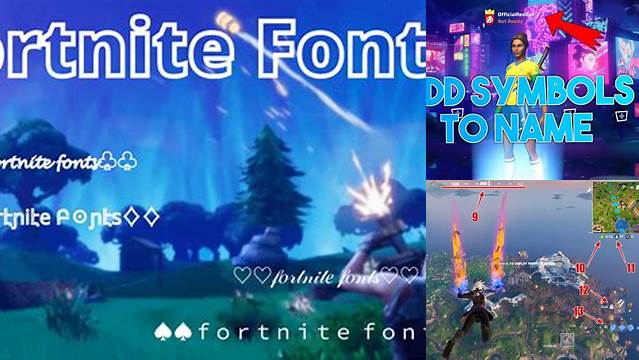
Fortnite Symbols & Fonts: Your Ultimate Guide
Hey, gamers! Are you ready to take your Fortnite game and content creation to the next level? If you're nodding your head, then you're in the right place! We're diving deep into the world of Fortnite symbols and fonts. We'll explore how you can spice up your usernames, clan tags, in-game chat, and even your streaming overlays with cool, eye-catching text and symbols. Get ready to transform your Fortnite experience from the ordinary to the extraordinary! Let's jump in and discover how to make your mark on the Battle Royale island!
Fortnite Symbols: Spice Up Your Username & In-Game Text
Fortnite symbols offer a fantastic way to personalize your in-game identity. Using special characters, symbols, and unique fonts can make your username stand out from the crowd. Fortnite symbols can be incorporated into your username to give it a distinctive look. Think of adding a cool symbol before or after your name, or even within your name, to create a visually appealing and memorable username. Using these symbols, you can create a unique online persona and boost your personal branding. Not only are they visually appealing, but they can also add an element of personality to your profile. Imagine seeing a username with a flame symbol, or a crown symbol, instantly conveying a sense of flair. This is also a great way to signify a level of skill or a particular niche. Whether you're a pro player or just starting out, using Fortnite symbols is a simple yet effective way to make your account stand out. Plus, it is completely free. You don't need to spend any money on expensive skins to make your profile unique. Just a copy and paste away, you can start implementing these symbols into your in-game text today. Also, these symbols can be added to your clan tags to identify your team. This enhances your team's identity and makes you more visible during gameplay. This allows you to represent your team and create a sense of unity within your squad. You can create a professional team image with cool looking clan tags that use different symbols. Furthermore, these symbols can also be used in the in-game chat. You can spice up your conversations with friends or even taunt your opponents. These symbols can convey your emotions. This could be a heart symbol for love, or a laughing emoji for humor.
How to Add Symbols to Your Fortnite Name
Adding symbols to your Fortnite name is pretty straightforward, guys. There are a few methods you can use to get started. The most common method involves using a symbol generator. Online symbol generators offer a wide variety of special characters and symbols that you can copy and paste into your Fortnite username. Simply open up a symbol generator website, browse through the available symbols, choose the ones you like, copy them, and then paste them into your username field in the Fortnite settings. The process is generally simple and easy to use. If you already have a symbol in your computer or have an image, you can convert the image into a character. You will need to use a special software or website to do so. This method allows you to customize your username with a truly unique symbol. Another method you can use is to use a character map. The character map is a built-in utility in Windows that provides a vast selection of special characters and symbols. You can open the character map, browse through the characters, choose the ones you want, copy them, and then paste them into your username field. This method is perfect for those who are looking for a more comprehensive selection of symbols. And lastly, you can also use a keyboard with special symbols. Certain keyboards are designed with a range of special characters and symbols that you can easily access with a single key press. You can use this keyboard to directly insert symbols into your username, without the need to copy and paste.
Popular Symbol Choices for Fortnite Players
There are a bunch of popular choices among Fortnite players when it comes to symbols. These popular symbols can be the perfect choice to give you the advantage over other players in the game. One of the most popular symbols is the star symbol. It represents excellence, achievement, and status. The star symbol is commonly used to convey the idea of a top-tier player or a successful team. The star can be used to create a sense of aspiration. It can be used to encourage players to strive for greatness. Another popular symbol is the crown symbol. It signifies royalty, victory, and prestige. The crown symbol can be used to represent a top player, a team, or a champion. This symbol can also make your username look more appealing. Adding this symbol is also a great way to show your status in the game. Another popular symbol is the flame symbol, guys. This is a powerful symbol that symbolizes passion, energy, and intensity. The flame symbol can represent a player's skill, their dedication, and their ability to deliver. If you are an aggressive player, or a player who plays with a lot of passion, then the flame symbol is for you. Another symbol is the sword symbol. This is a symbol of strength, bravery, and courage. The sword symbol can be used to represent a player's skill, determination, and courage. If you play in a competitive manner, you might want to add a sword symbol to your name. A heart symbol can also be added. This symbol is to represent love, friendship, and unity. If you're part of a team, or if you want to convey the feeling of unity, this might be the perfect symbol.
Fortnite Fonts: Enhance Your Communication & Brand
Beyond symbols, Fortnite fonts provide another layer of customization. The use of unique fonts in your game or content can significantly impact your branding. Whether you're creating content, designing team logos, or personalizing your in-game chat, font selection plays a crucial role. Let's dive deeper into the ways you can utilize different fonts to elevate your Fortnite experience. These fonts can make your content stand out from the crowd. Using a custom font is a great way to differentiate yourself. Plus, it is a great way to reflect your personal brand and style. You can choose a font that reflects your personality, creating a consistent and recognizable identity. It is also a great way to improve readability. Using a font that's easy to read is important for your audience to understand what you are trying to convey. Moreover, these fonts can also improve engagement and retention. Viewers are more likely to stay engaged when they enjoy what they are reading. Using a font that is visually appealing keeps your audience interested and coming back for more. Whether you're a streamer, content creator, or a player who enjoys expressing themselves, these fonts can make your game stand out.
Where to Find Cool Fortnite Fonts
Finding cool Fortnite fonts is easier than you think, my friends. Several online resources offer a variety of fonts, from fancy ones to those that mimic popular gaming styles. When it comes to finding cool fonts, online font generators are your best friends. These generators convert your regular text into various stylish fonts that you can easily copy and paste. Many websites offer a user-friendly interface that makes it easy to generate fonts on the fly. Another way is to use a dedicated font website. These websites are perfect for those who want to explore a broader collection of fonts. Websites like DaFont and FontSpace provide a diverse range of fonts, including those inspired by gaming, fantasy, and sci-fi. You can download fonts, install them on your system, and use them in your content creation software. Furthermore, many social media platforms offer built-in font styles that can be used in your bio or posts. Platforms like Instagram and Twitter have a limited set of font options you can use to spice up your content. These can be the perfect solution for simple font customizations, without the need to use external tools. It is important to remember that some fonts might not be supported by Fortnite itself. So, when you're choosing a font, you might want to test it out in-game to ensure it displays correctly.
Font Styles That Work Well in Fortnite
Certain font styles are perfect for creating a strong visual identity in Fortnite. The choice of font can significantly enhance the overall look and feel of your content. The right font will not only grab attention, but also improve readability, which is crucial for your audience. One of the most popular fonts is the bold font. This font is perfect for emphasizing important elements in your content. A bold font can make your text stand out, especially in headlines and titles. Also, this font ensures that your message is easily read. The bold font is great for capturing the attention of your audience. Another font style is the italic font. This font is a perfect choice to add emphasis and a touch of style to your content. This font is ideal for quotes, captions, and highlighting key information. With an italic font, you can create a visually appealing and stylish presentation. It can also add a touch of elegance to your content. Another font style is the monospace font. This is a great choice for technical content, such as coding or scripting. The monospace font ensures that all characters have the same width. This provides a clean and organized look. The monospace font is also great for displaying data and information. If you want a classic look, then a sans-serif font is the right choice for you. It has a clean and simple look, and is a perfect choice for body text and long passages. With a sans-serif font, you can ensure that your content is easy to read and visually appealing. Moreover, the script font can be a great choice to add a touch of flair and sophistication to your content. This font is perfect for headlines, titles, and logos. Script fonts can be used to create a visually appealing and memorable presentation.
Unique Fortnite Text Generators: Crafting Custom Designs
Unique Fortnite text generators can transform your plain text into visually stunning designs. These generators are a game-changer, giving you the power to create text that’s both eye-catching and unique. Let's explore the benefits of using these generators and how they can enhance your Fortnite content creation. Text generators offer an easy and effective way to transform your in-game text. Whether you're looking to make your username more exciting or create visually appealing overlays for your streams, these tools are your secret weapon. One of the main benefits is ease of use. With these generators, you can create professional-looking designs without being a design expert. The interface of these generators is also user-friendly. These tools are also a great time-saver. You can create unique text designs in seconds, allowing you to focus on your content. These generators also offer a wide variety of fonts, symbols, and styles. From basic text to complex designs, text generators offer endless possibilities for your in-game text. Moreover, using these generators improves your creativity and personal brand. You can create unique designs that express your personality and attract your audience. These generators can be the perfect tool to create eye-catching content.
Top Fortnite Text Generators to Try
There are several top Fortnite text generators that you should try. These generators offer a wide array of fonts, symbols, and customization options. One of the most popular generators is the fancy text generator. This generator is known for its ability to transform your plain text into fancy, stylized fonts. The fancy text generator is also extremely easy to use. You simply type in your text, choose your style, and copy and paste. Plus, it offers a wide variety of styles, from classic to modern. The stylish text generator is another popular option, guys. This generator provides a range of stylish fonts that are perfect for usernames, bios, and more. With this generator, you can create a visually appealing profile, or make your content more engaging. Furthermore, this generator is a great way to make your content stand out from the crowd. Another top generator is the symbol text generator. This generator is your go-to tool for adding symbols and special characters to your text. Symbol text generators give you a wide variety of symbols and characters that can make your text unique. You can also create personalized designs. This generator is also known for its ease of use. And finally, the Unicode text generator is another popular choice. This generator supports a wide range of Unicode characters and symbols. With this generator, you can create unique text designs. Plus, you can use the Unicode text generator to express yourself in various ways.
Customizing Your Text with Generators
Customizing your text with generators is a fun and creative process. With the right tools, you can create unique and engaging text designs that reflect your style. When you're customizing your text, the first thing you should do is choose the right generator. Select a generator that offers the features you need. Consider the font styles, symbols, and customization options available. Before you start, you need to decide on your text. Type in the text you want to customize. Then, choose your style. Most generators offer a variety of styles, so pick a style that matches the design of your text. Play with the different styles and fonts. You can also experiment with different symbols, such as stars, hearts, and crowns. Once you're satisfied, copy the generated text. Then, paste it into your game, social media profile, or any other platform you want to use it on. Remember to test the generated text. Before you use the generated text, you must make sure that the font and symbols are visible in the platform or game you are using. You can test the generated text by pasting it into a text editor. By following these steps, you can create amazing and unique text designs.
Integrating Fonts & Symbols in Your Fortnite Content
Integrating fonts and symbols effectively can greatly enhance your Fortnite content. Whether you're a streamer, a video creator, or a player, the way you use fonts and symbols can make a massive difference. You can improve your content by using fonts and symbols in your streams, videos, or social media posts. Let's explore how you can integrate these elements to make your content shine. When it comes to integrating fonts and symbols, the first thing you should consider is your branding. Choose fonts and symbols that are consistent with your brand and personality. This will create a recognizable and memorable identity. You can use fonts and symbols in your content. Be sure to use them in a way that enhances your message and your content. Consider the readability of your text. Choose fonts that are easy to read. If you are going to use symbols, make sure that they are visible and not distracting. If you're creating content for social media, choose fonts and symbols that align with the platform's guidelines and policies. This will ensure that your content is displayed properly. This also helps in achieving a consistent look across multiple platforms. If you're a streamer, you can incorporate fonts and symbols into your overlays, alerts, and chat. Using custom fonts for your stream is also a great way to add a unique style. Use symbols to highlight important information or events during your streams. Also, use your custom usernames or clan tags in your game to create a sense of community.
Best Practices for Using Fonts in Streaming & Videos
There are a few best practices to keep in mind when using fonts in streaming and videos. Following these practices will ensure your content looks professional, engaging, and visually appealing. One of the first practices is to choose the right font for your content. Consider your audience and the tone of your content. Avoid using fonts that are difficult to read. Make sure the font matches your brand identity. Font consistency is also important. Be consistent with your font choices throughout your streams or videos. Using the same font for your headlines, titles, and body text will create a unified look. You can also use different fonts to create contrast, such as using a bold font for your headlines, and a standard font for your body text. You can also use a font that matches your video theme. If you're creating a video about a specific game, or a specific topic, you can choose a font that complements the theme. Also, make sure to consider the font size and readability. The font size should be large enough to be seen clearly. Make sure that the text is easy to read, even when the video is viewed on a small screen. You should also use color and contrast to improve readability. Make sure there is enough contrast between the text and the background. This will make your text stand out and make it easier to read. You can also use animations and transitions to enhance your text. Make your text visually appealing. Animations and transitions can draw attention to your text and keep your audience engaged. By following these best practices, you can make your streams and videos stand out from the crowd.
Tips for Using Symbols in Your Content Creatively
Using symbols creatively can significantly enhance your Fortnite content. By adding symbols to your content, you can make it more visually appealing and engaging. Here are some tips for using symbols creatively. First, know your audience. Consider the interests of your audience. Choose symbols that they will relate to. This will make your content more relatable. You can also use symbols to convey emotions. Use symbols like emojis to express emotions. This will add a personal touch and help your audience connect with you. You can use symbols to represent your brand identity. Use symbols that align with your brand. This will help create a consistent and memorable brand. You can also use symbols for emphasis. Use symbols to highlight important information. This will make your content more visually appealing. You can also use symbols in different ways. Experiment with different symbols and arrangements. This will make your content unique. In addition, using symbols to create visual cues is an effective way to guide the audience. Symbols can be used to emphasize information, direct attention, and create visual interest. You can also use symbols to add a touch of personality to your content. This can make your content more engaging and memorable. Adding symbols is a creative way to engage with your audience.
Fortnite Font & Symbol Legalities: What You Need to Know
When using Fortnite fonts and symbols, it's essential to be aware of the legal aspects. Copyright, licensing, and terms of service can impact how you can use these elements in your game. Let’s dive into the legal aspects of using fonts and symbols to ensure you stay compliant. To begin, understanding copyright and licensing is critical. Many fonts and symbols are protected by copyright. This means that the creator of the font or symbol owns the rights. This is usually the case. Before using any font or symbol, you need to review the license. The license will tell you how you can use the font or symbol. Make sure the license permits the use you intend. It is also important to be aware of Fortnite's terms of service. The terms of service outline the rules for using the game. You must also review the terms of service. These terms will tell you which elements you can use in the game. They may also tell you which content is prohibited. If you are using fonts or symbols for commercial purposes, you must pay attention to commercial licenses. If you plan to use fonts or symbols in content that generates revenue, you may need a commercial license. This allows you to use the font or symbol in your commercial project. It is also important to use fonts and symbols responsibly. Avoid using any fonts or symbols that are offensive. Make sure that the fonts and symbols align with the spirit of the game. This will ensure that you will not violate any of the terms and conditions of the game. If you are unsure about the legal aspects of using a font or a symbol, you should consult an attorney. They can provide guidance and help you avoid any legal issues.
Copyright and Licensing for Fonts & Symbols
Copyright and licensing play a crucial role in how you use fonts and symbols. Understanding these aspects will help you avoid legal issues and ensure you use these elements correctly. Copyright is a form of legal protection for the creator of a font or symbol. The creator owns the exclusive rights to use the work. Before using a font or symbol, you must review the license. This will help you understand how you can use the work. Some licenses allow you to use the font or symbol for personal use only. Other licenses may allow you to use the font or symbol for commercial purposes. Pay attention to the license type. Some licenses, such as the Creative Commons licenses, have different terms and conditions. If you are using a font or symbol for commercial purposes, you must obtain a commercial license. This license will allow you to use the font or symbol to make money. This license typically requires a fee. If you are unsure about the license terms, seek legal advice. A lawyer can help you understand the license and ensure you're complying with the terms. Always give credit to the font or symbol creator. If the license requires attribution, make sure to give proper credit to the creator. If you use the font or symbol, add the name of the creator. By understanding copyright and licensing, you can use fonts and symbols correctly.
Fortnite's Terms of Service: What to Avoid
Fortnite's terms of service outline the rules you must follow when playing the game. This is a set of guidelines. This also covers how you can use fonts and symbols. Understanding these terms is important to prevent violations. It will also help you avoid penalties. The terms of service will explain what content is prohibited in the game. You must not use fonts or symbols that violate the rules. The terms may prohibit the use of offensive, hateful, or discriminatory content. You must also avoid any content that is illegal. This can include any fonts or symbols that promote illegal activities. You must also avoid any content that violates the intellectual property rights of others. This includes using fonts or symbols that infringe on copyrights or trademarks. If you are creating content for Fortnite, make sure that your content complies with the game's terms of service. This will ensure that your content is appropriate. You should also pay attention to the in-game chat rules. The chat rules will explain what you can and cannot say in the game. You must also avoid using any fonts or symbols that are inappropriate in the chat. This is important to avoid getting banned from the game. You can also review the Fortnite content guidelines. These guidelines provide advice on creating content for Fortnite. You can make sure that your content complies with the game's terms of service. It is important to review Fortnite's terms of service regularly. These terms may change over time. You should stay informed about these changes to ensure that you are always in compliance.
Future Trends in Fortnite Text & Symbol Customization
As Fortnite evolves, so will the possibilities for text and symbol customization. The future holds exciting developments that will transform the way players express themselves in the game. These trends will allow players to express their creativity. Let's explore the potential future trends. Expect to see more advanced text generators and customization tools. These tools will become more sophisticated, offering more options. You will be able to create unique text designs, and your text will reflect your personality. We might also see more in-game font support. This means that the game itself will offer a wider range of fonts. You will be able to customize your text directly within the game. There could also be a rise in the integration of dynamic text. Dynamic text can change in real time, such as displaying stats or other information. Dynamic text will add an extra layer of interactivity. You can also expect to see more integration with social media. Social media platforms will play a bigger role. They will integrate with Fortnite to enable you to share your custom text designs. Moreover, there will be a focus on inclusivity and accessibility. This means that font and symbol options will be available to everyone. There will also be a focus on usability. Customization tools will be easier to use, making them accessible to all players.
Emerging Technologies & Tools for Text Customization
Emerging technologies and tools are reshaping the way text is customized in Fortnite. These tools will provide exciting new options. As technology advances, expect to see the rise of AI-powered text generators. These generators will create unique designs. They will analyze your text and provide design suggestions. With this, you can create more sophisticated designs. There will also be a greater focus on 3D text. With 3D text, you can add depth and dimension to your text designs. This can be used to create more visually appealing designs. You can also expect more integration with augmented reality. Augmented reality technology can be used to add text to your in-game world. This will bring the text to life. You might also see the emergence of personalized font libraries. These libraries will allow you to create your own custom fonts. You will be able to create fonts that reflect your style. Furthermore, we'll see a growth in cross-platform compatibility. This means that text designs will be able to be used across different platforms. You can also expect greater emphasis on user-friendly interfaces. The tools will become easier to use. This will make it easier for players to customize their text designs.
Predictions for the Future of Fortnite Symbolism
The future of Fortnite symbolism holds exciting possibilities for creative expression. The symbols are going to become more important. Symbolism plays a key role. You can use it to express yourself. Expect to see new and innovative symbol designs. These designs will be more diverse, allowing you to express your personality. You can expect that symbols will play a bigger role. This is because symbols will also become more dynamic. They will be able to change based on events in the game. You might also see symbols become more interactive. You will be able to interact with the symbols in your game. We can also anticipate more integration with community-created symbols. The community will be able to design their own symbols. These symbols will be available to be used in the game. Additionally, the developers will pay more attention to inclusivity. They'll create a range of symbols for everyone. You can expect that symbols will become a more integral part of the Fortnite experience. Players can use them to express themselves.